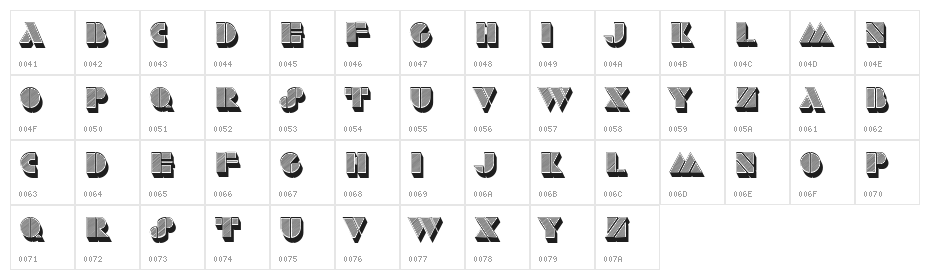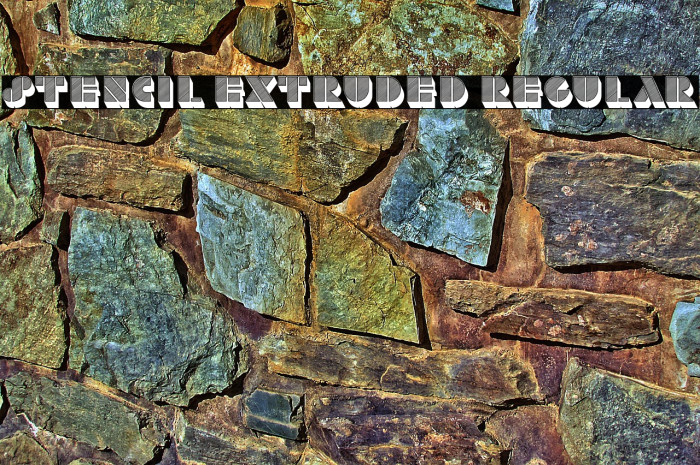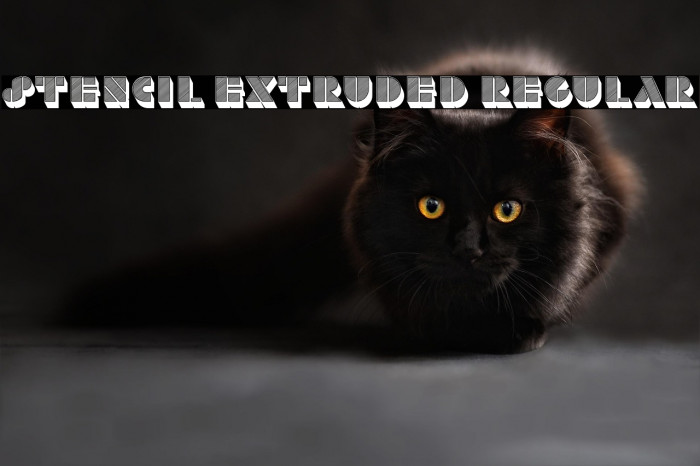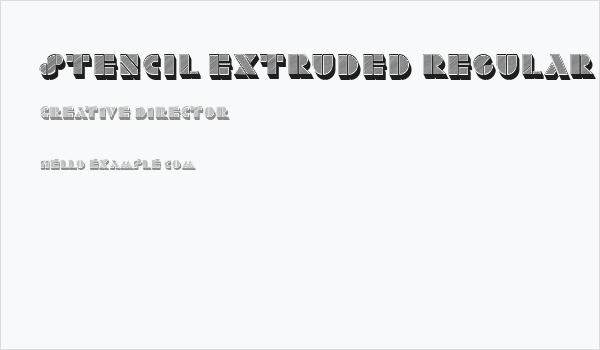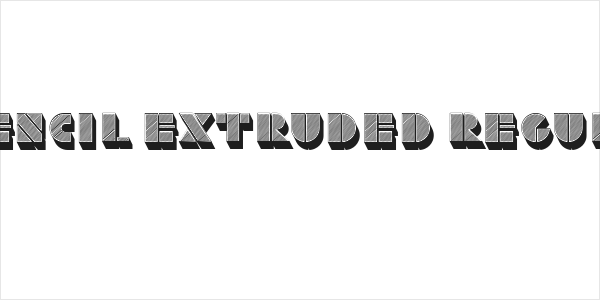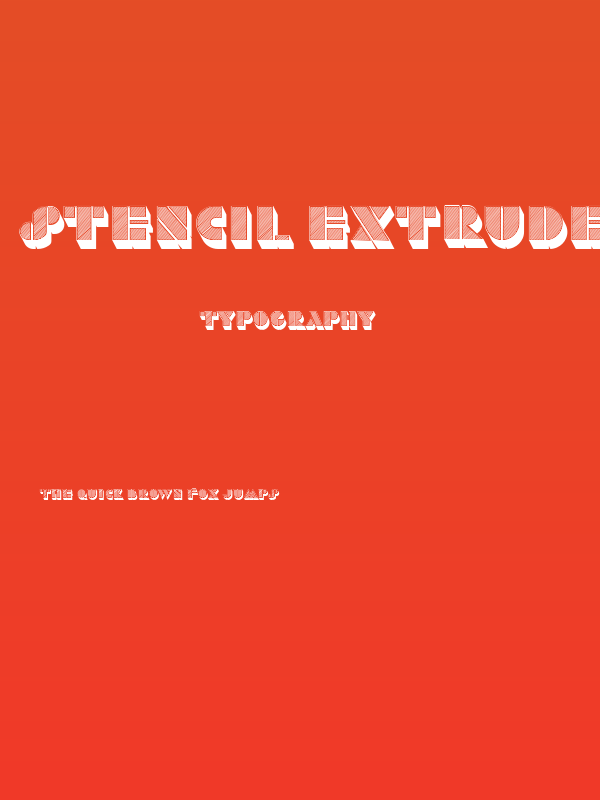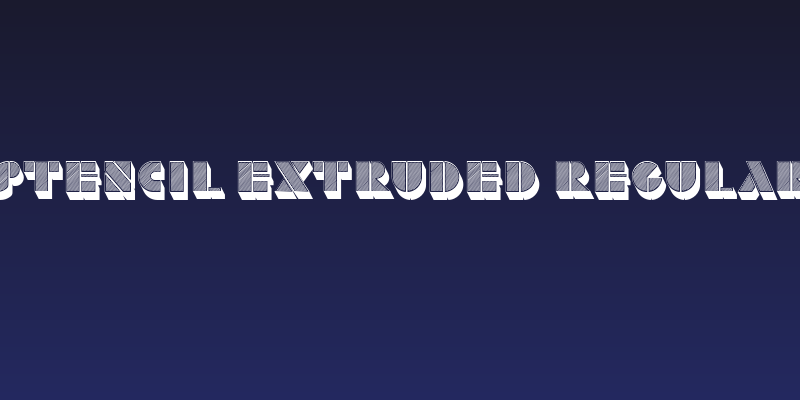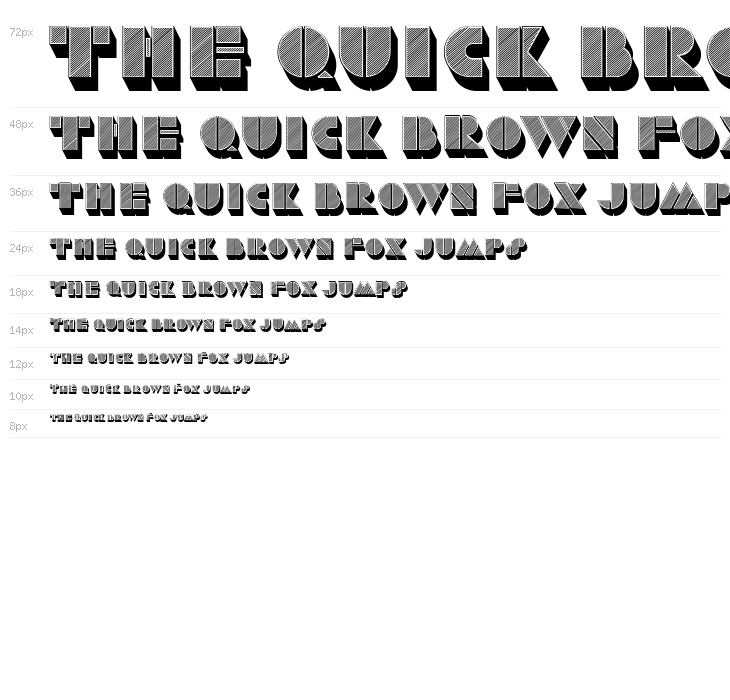
Stencil Extruded Regular Font
Stencil Extruded Regular Description
This font features a bold, three-dimensional design with a distinct stencil effect. The characters are uppercase and exhibit a strong, geometric structure with cut-out sections that create a unique, industrial appearance. The extruded shadow effect adds depth, making it ideal for impactful visual statements. The font's style is reminiscent of vintage military or industrial signage, offering a blend of retro and modern aesthetics. Its bold presence and distinct cutouts make it stand out, suitable for designs that require a strong, authoritative look.
| Overall Style | Vintage, Industrial |
| Use Case | Headlines, Logos, Signage |
| Proposed Projects | Ideal for posters, logos, signage, and branding projects that require a strong, impactful visual presence. |